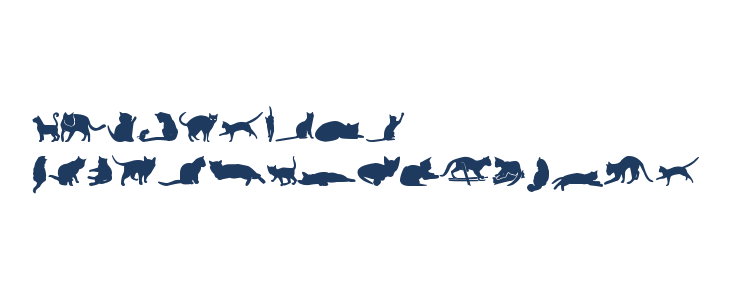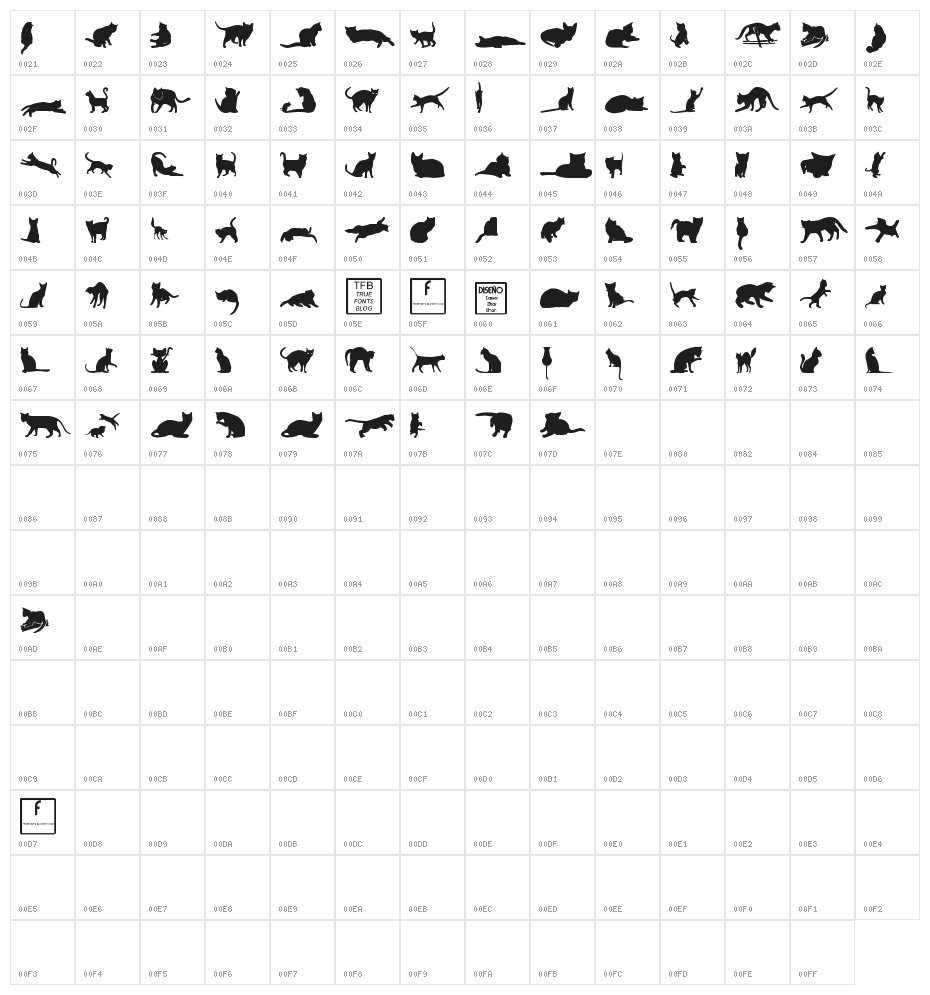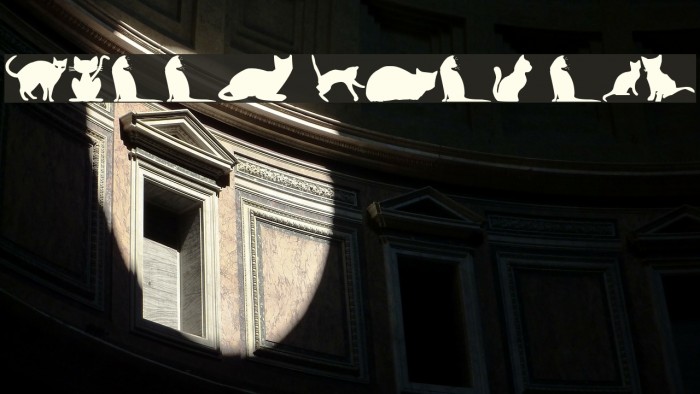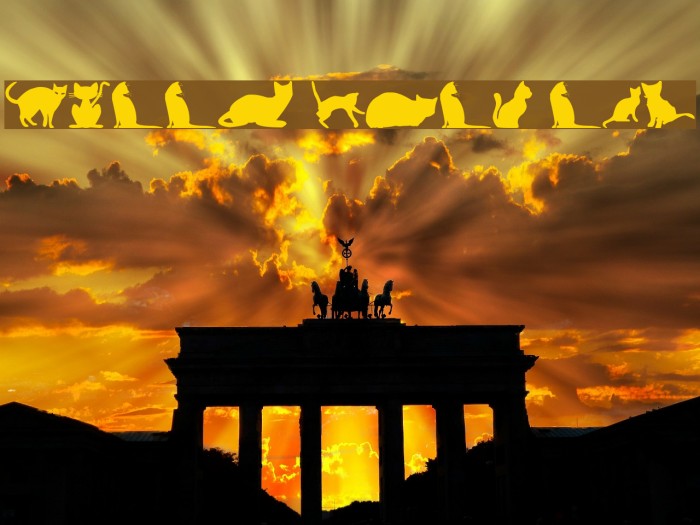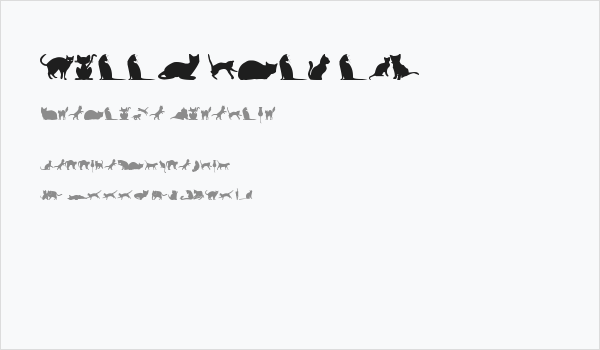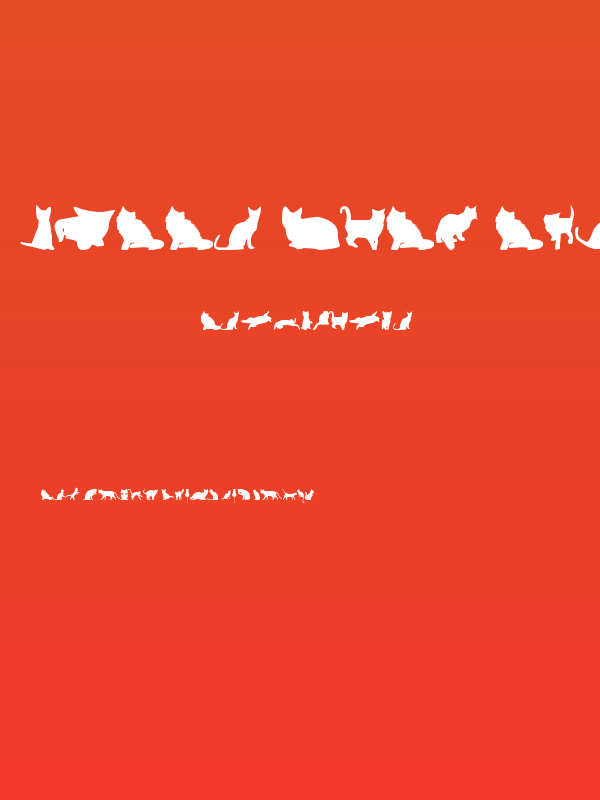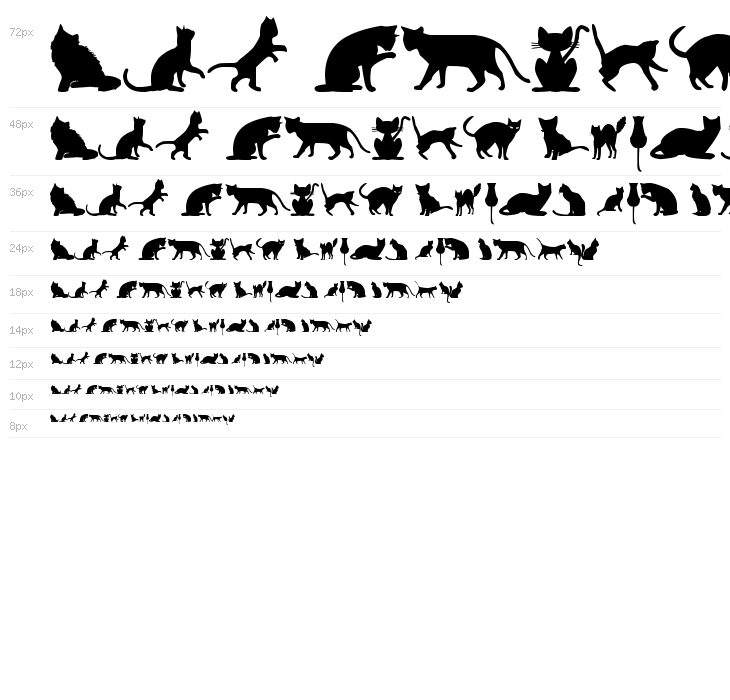
kitty cats tfb Font
kitty cats tfb Description
A collection of playful and varied black cat silhouettes, each glyph representing a different cat pose or interaction, with a whimsical and illustrative style rather than traditional letterforms.
| Overall Style | Decorative, Playful, Whimsical |
| Use Case | Icons, Decorative elements, Themed graphics |
| Proposed Projects | Pet-themed designs, greeting cards, children's books, scrapbooking, decorative accents, animal shelter promotions. |